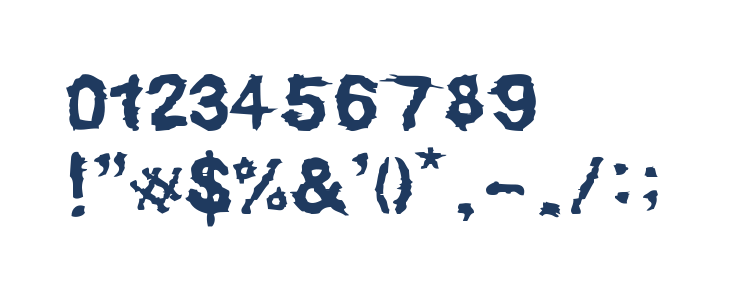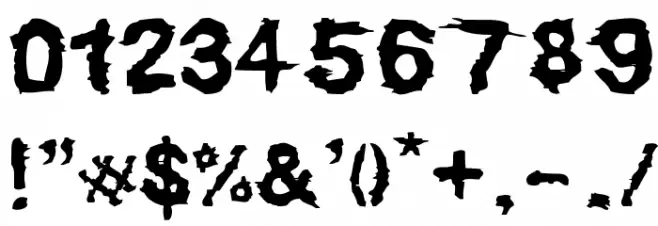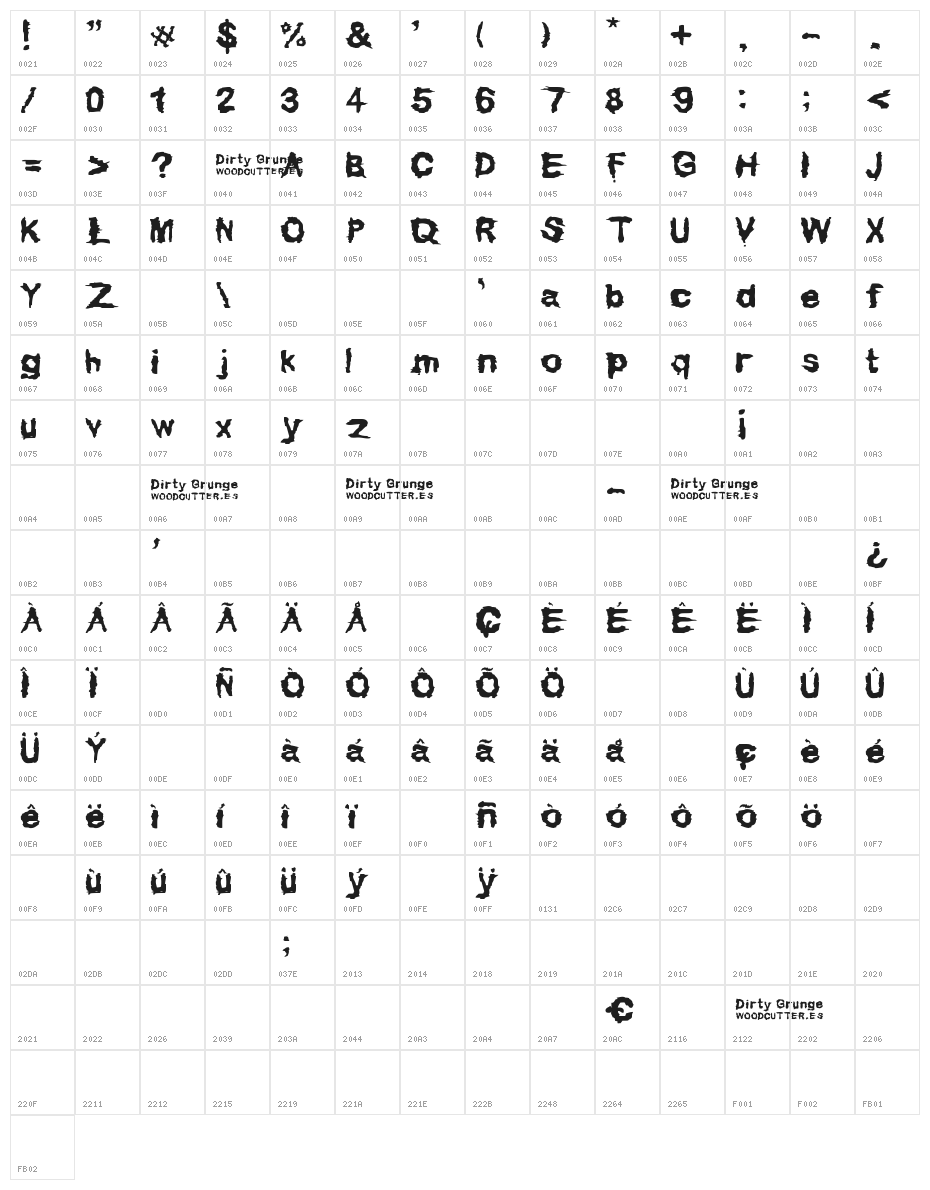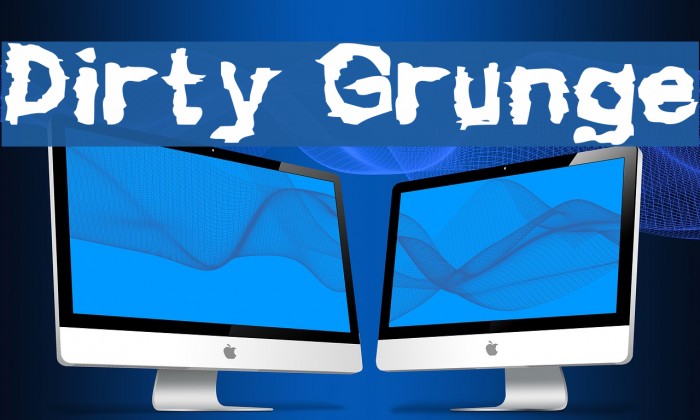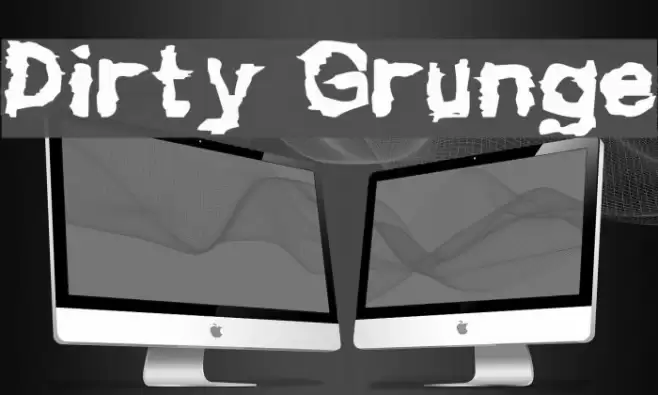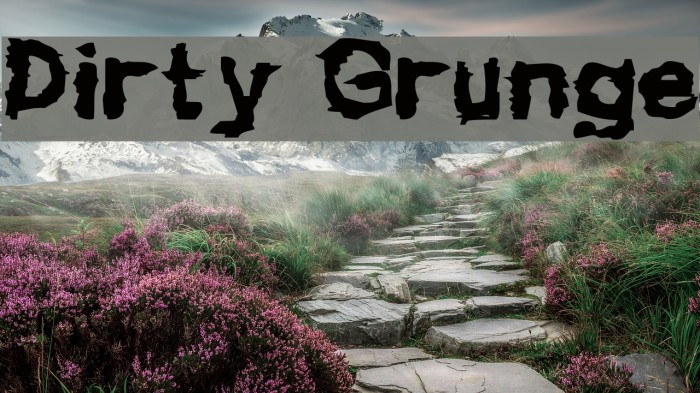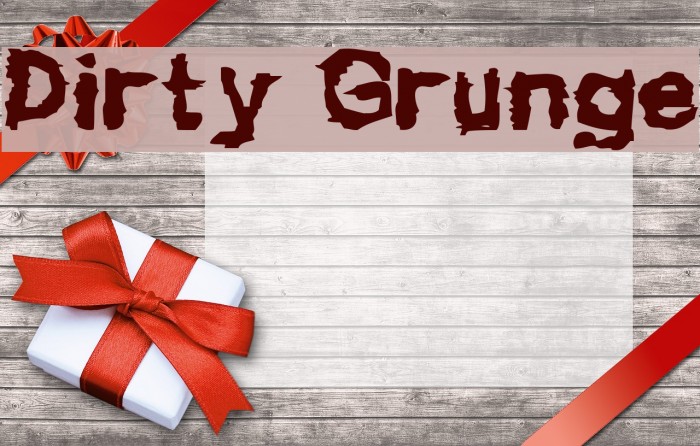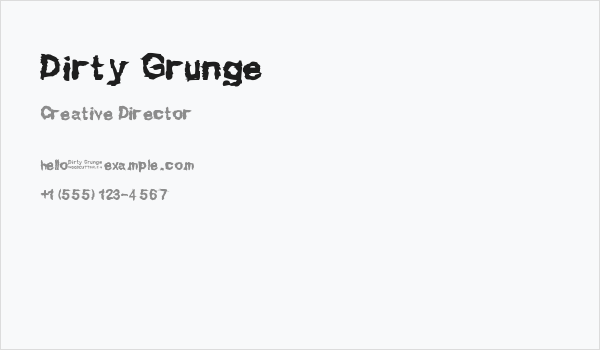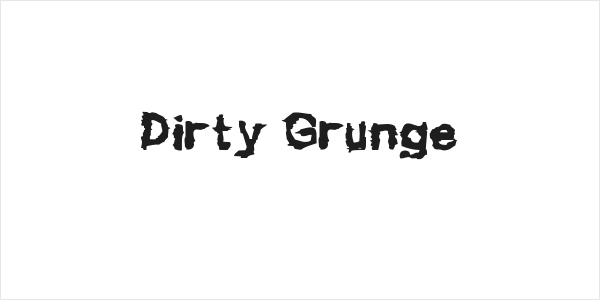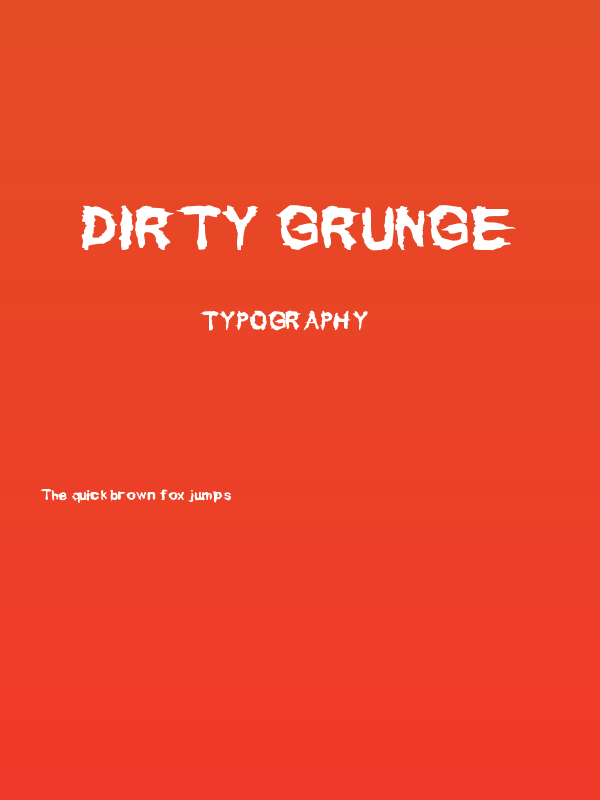
Dirty Grunge Font
Dirty Grunge Description
This font exudes a gritty, distressed aesthetic, reminiscent of grunge and urban decay. The characters are irregular and jagged, with rough edges that suggest a worn or weathered look. Each letter appears as if it has been splattered or eroded, giving it a raw and edgy feel. The uppercase and lowercase letters maintain a consistent style, with numbers and special characters following suit. This font is ideal for projects that require a rebellious or underground vibe, such as music album covers, posters, or streetwear branding.
| Overall Style | Grunge, Urban, Distressed |
| Proposed Projects | Ideal for music album covers, posters, streetwear branding, and any project needing a rebellious or underground vibe. |